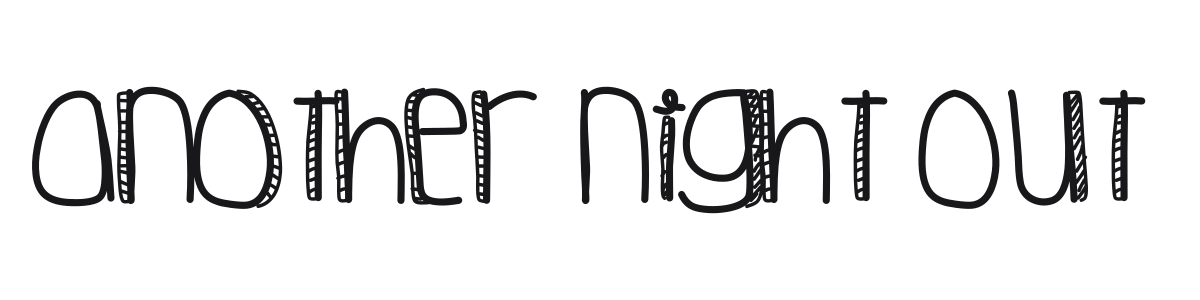
Another Night Out
by Des Gomez
Another Night Out is a playful, hand-drawn novelty face from Des Gomez with patterned, doodle-filled letterforms that give each character its own quirky personality. The decorative details feel loose and spontaneous, like someone sketched them out during a long phone call. Best kept to headlines and short display text where the whimsical detail can actually register.